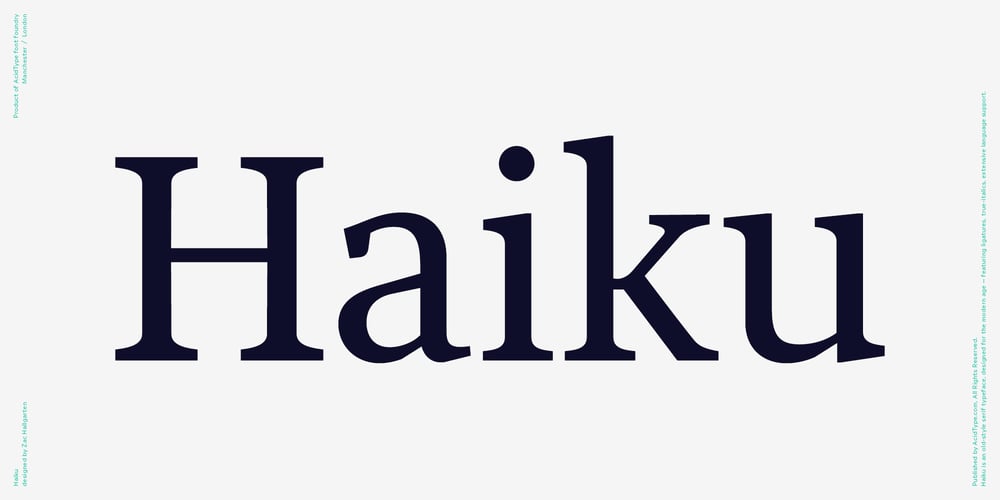
Haiku
Haiku font
Haiku Font Family was designed by Zac Hallgarten and published by AcidType. Haiku contains 2 styles and family package options. Haiku is a very modern old-style typeface. Inspired by late Renaissance-era typography, and carefully optimised for both display and text, digital and print. Featuring ligatures, old-style numerals, wide language support, and true italics.